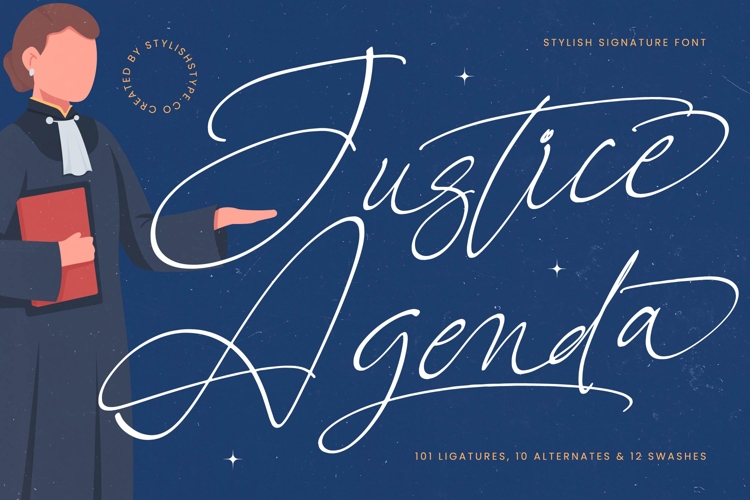
Justice Agenda - Stylish Signature Font
Elevate your brand's visual identity with the unparalleled sophistication of Justice Agenda - Stylish Signature Font. This elegant script captures the essence of premium typography, offering a handwritten aesthetic that balances professional authority with an intimate, touch. Its sweeping curves and high-contrast strokes create a fluid rhythm, making it an essential tool for designers seeking to convey confidence and refined taste in every digital or printed character.
Designed for maximum visual impact, this typeface is the ultimate choice for high-stakes creative projects. Justice Agenda - Stylish Signature Font is perfect for luxury branding, premium packaging, and editorial design where a unique, signature personality is required. Whether you are crafting high-end stationery, corporate identities, or chic social media headers, this font provides the artistic flair needed to stand out in a competitive marketplace.
Global reach meets artistic excellence in this comprehensive and versatile typeface. With its extensive multilingual support, Justice Agenda - Stylish Signature Font adapts seamlessly across global markets, making it incredibly versatile for international projects. It features an impressive library of 101 ligatures and 12 swashes, allowing for custom typographic arrangements that feel truly bespoke, organic, and professional-grade for any application.
Master the art of professional communication with a font that leaves a lasting impression on your audience. By integrating Justice Agenda - Stylish Signature Font into your design toolkit, you ensure success through elegance and modern design sensibilities. It is more than just a typeface; it is a strategic asset for any creative professional looking to deliver authentic and persuasive visual narratives across all modern media platforms.